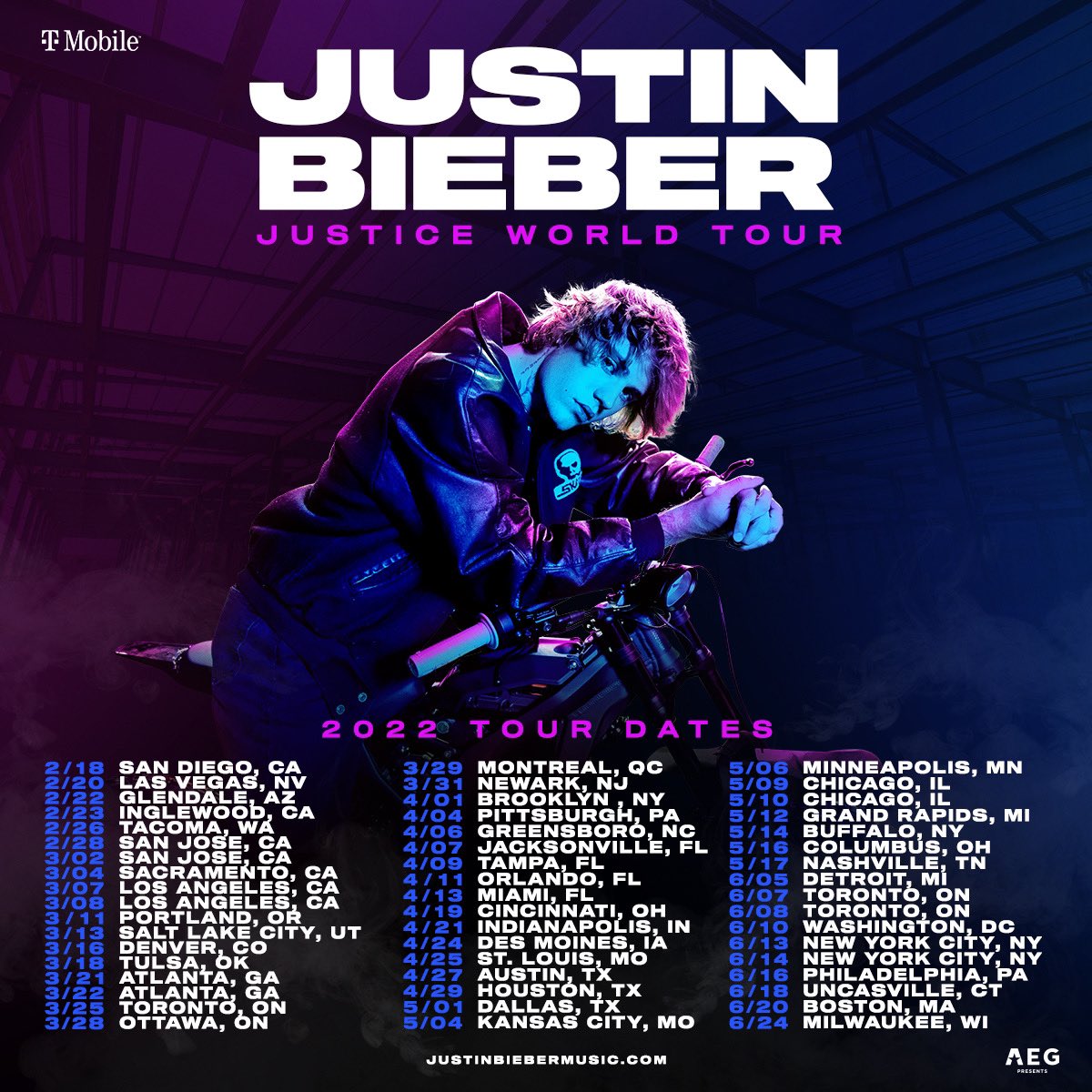
Justice World Tour Font
Fonts in UseThe Justice World Tour is a concert tour by Canadian singer Justin Bieber in support of his sixth studio album, "Justice". On February 18, 2022, the tour got underway and made stops in North America, Europe, Asia, and Oceania.
The poster's text appears to be set in Sequel 100 Black, a neo-grotesque sans serif font family designed by Oliver Jeschke. More details about the font are available here.